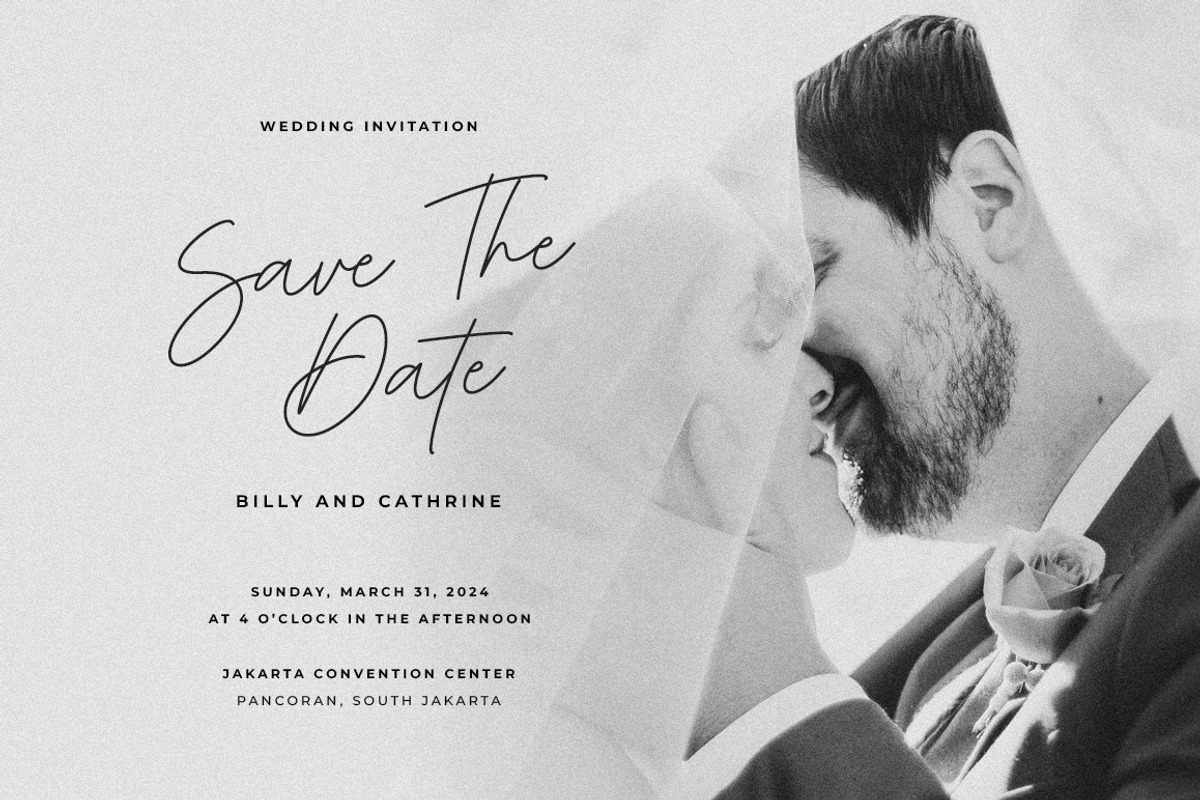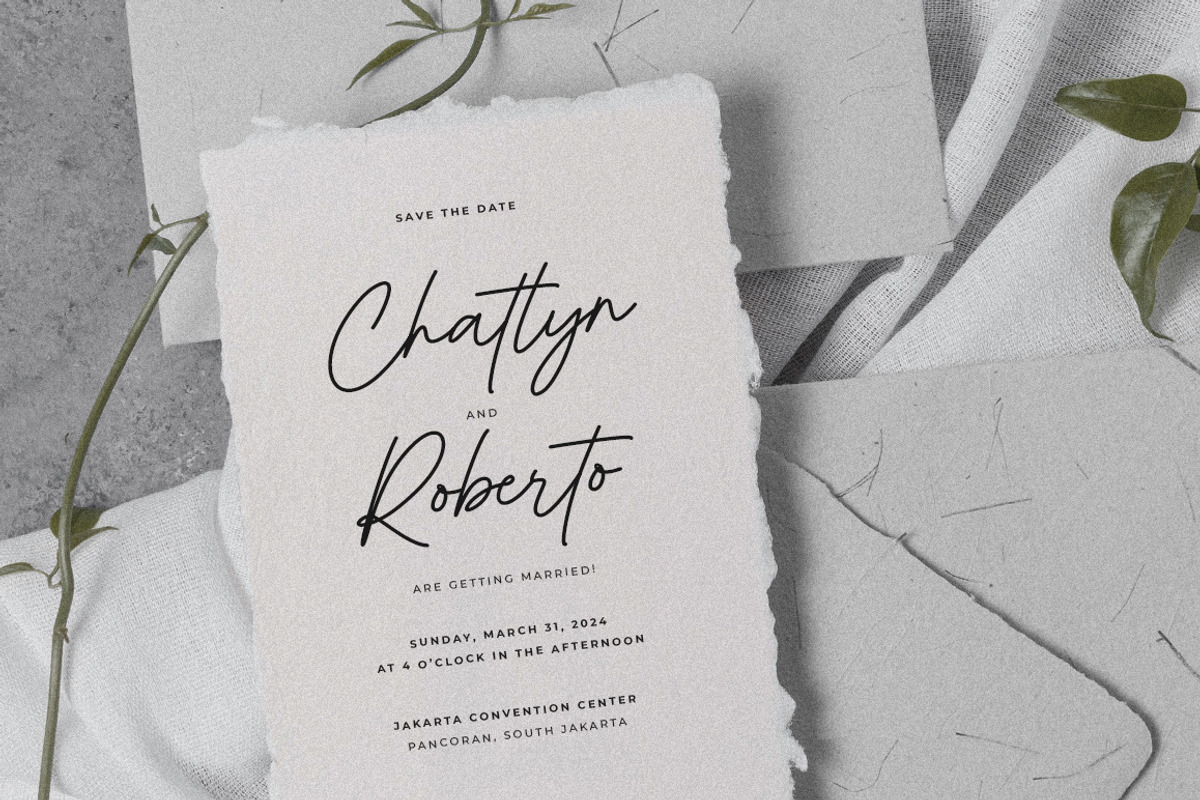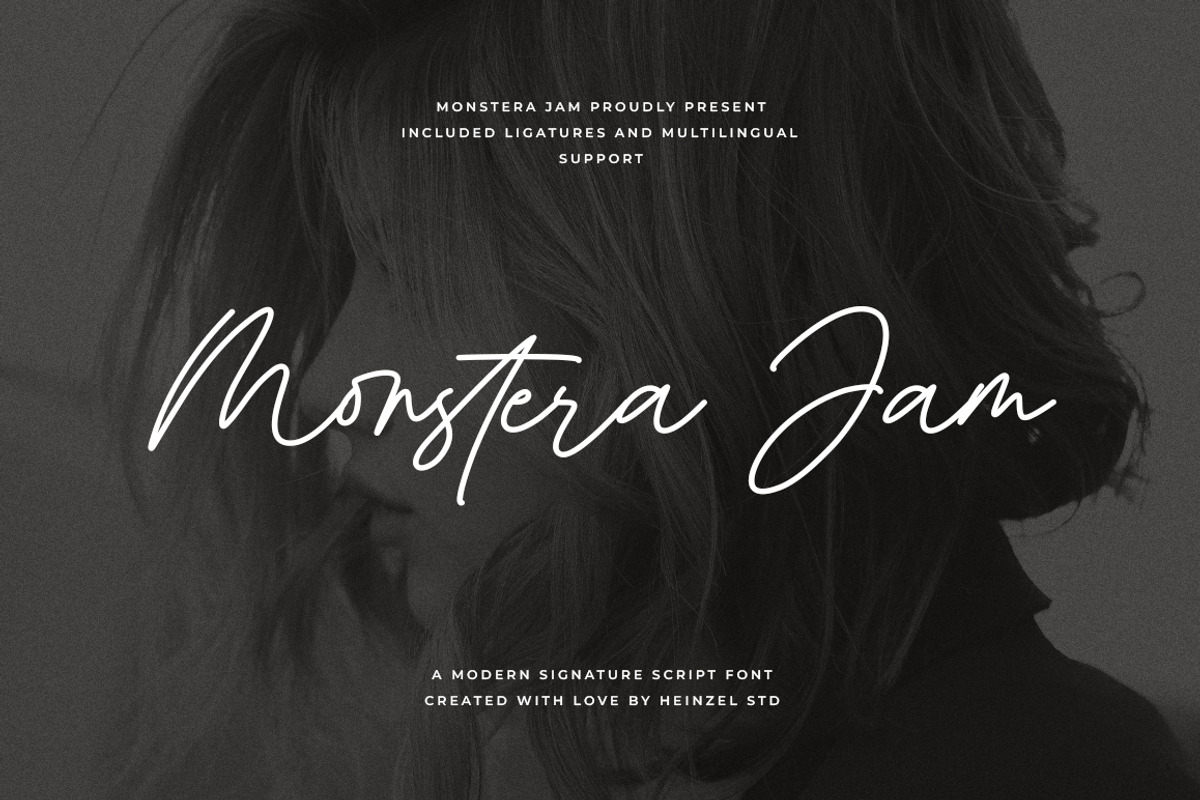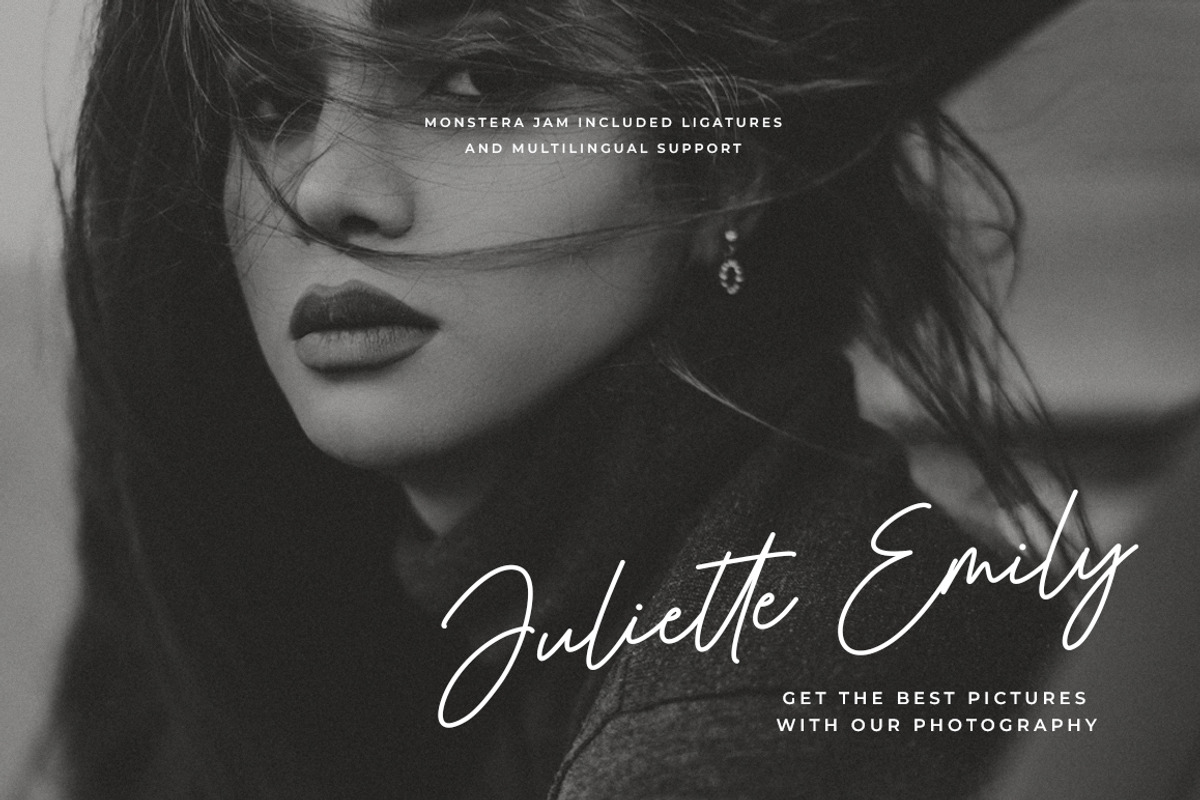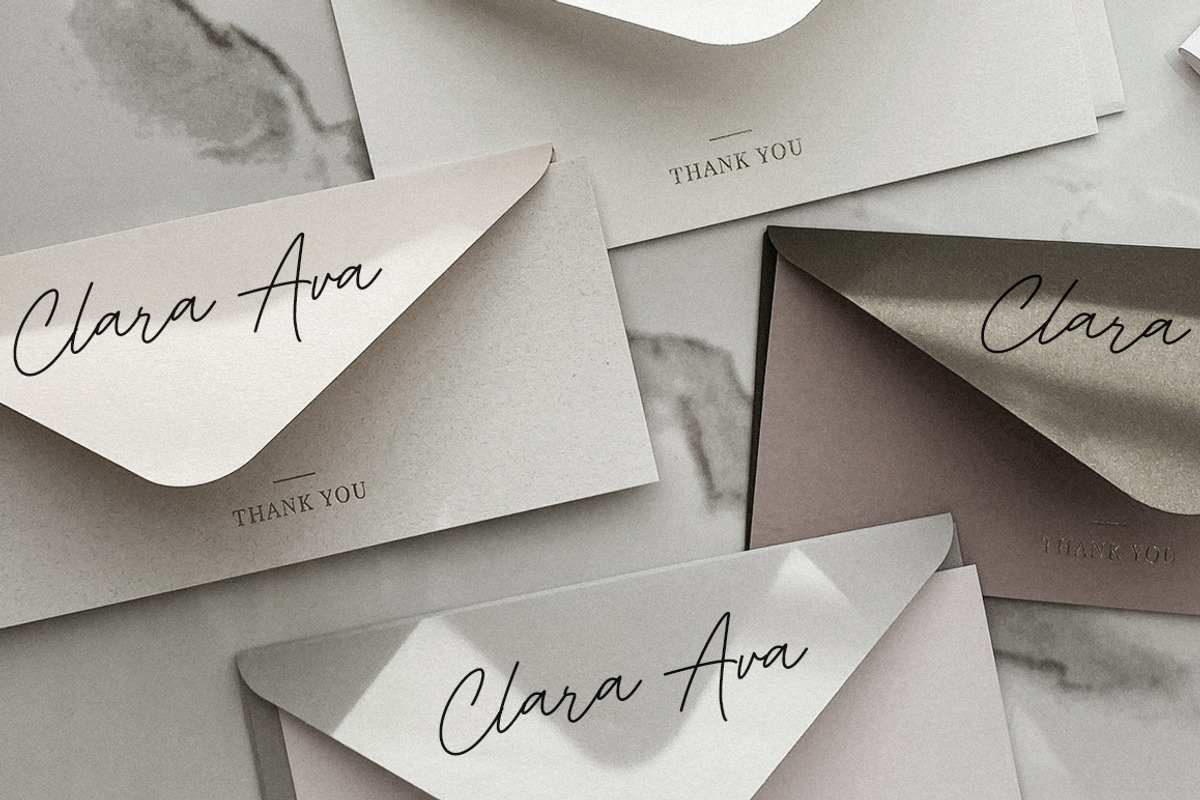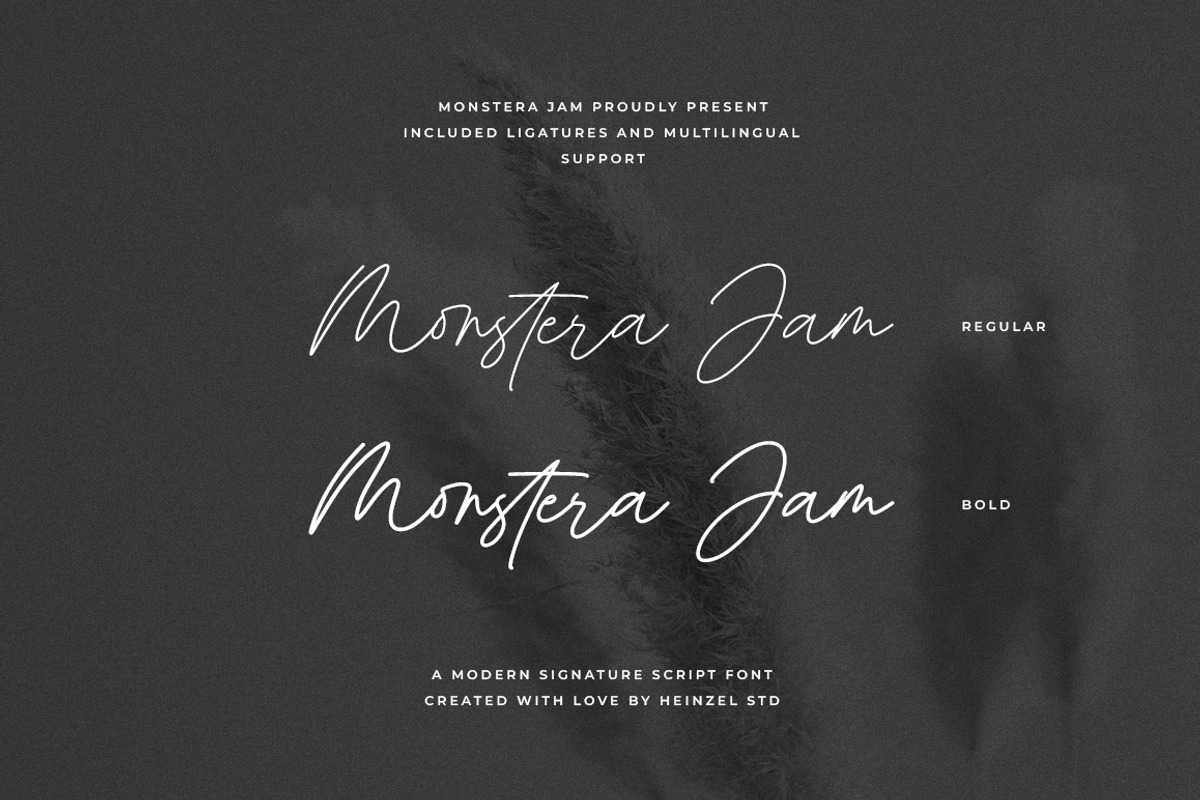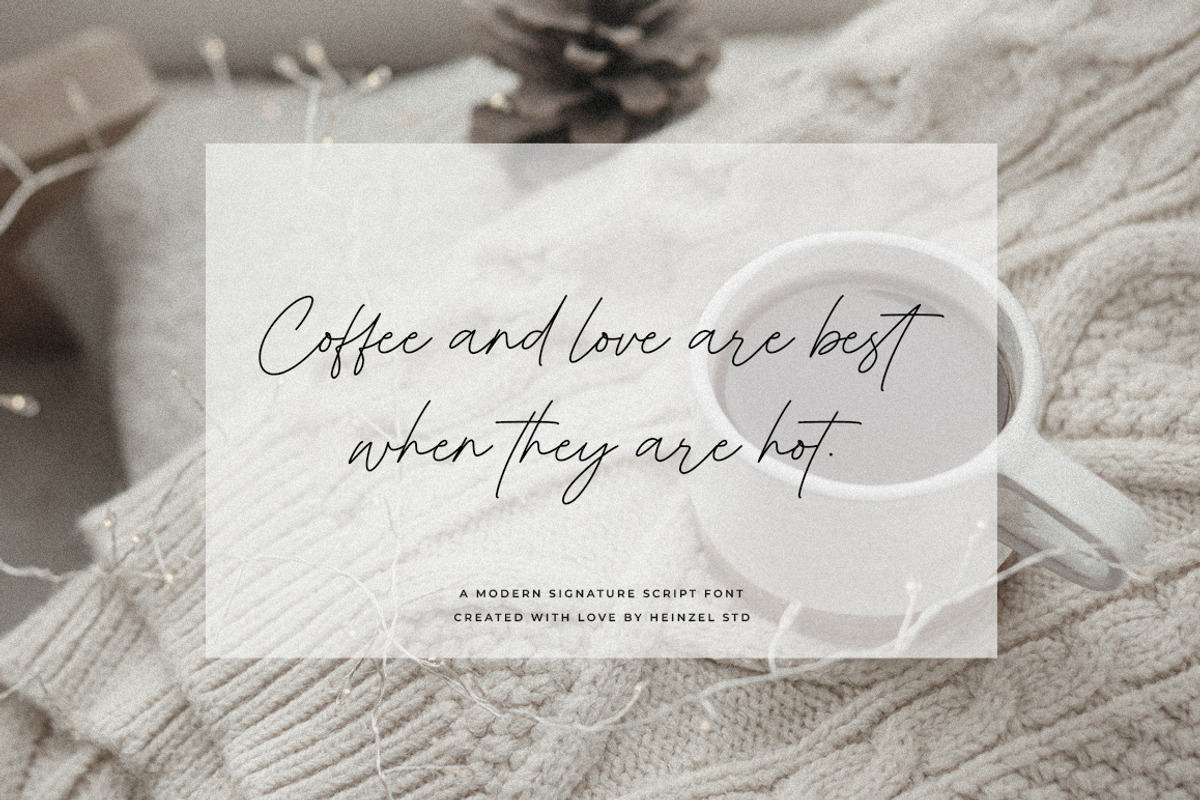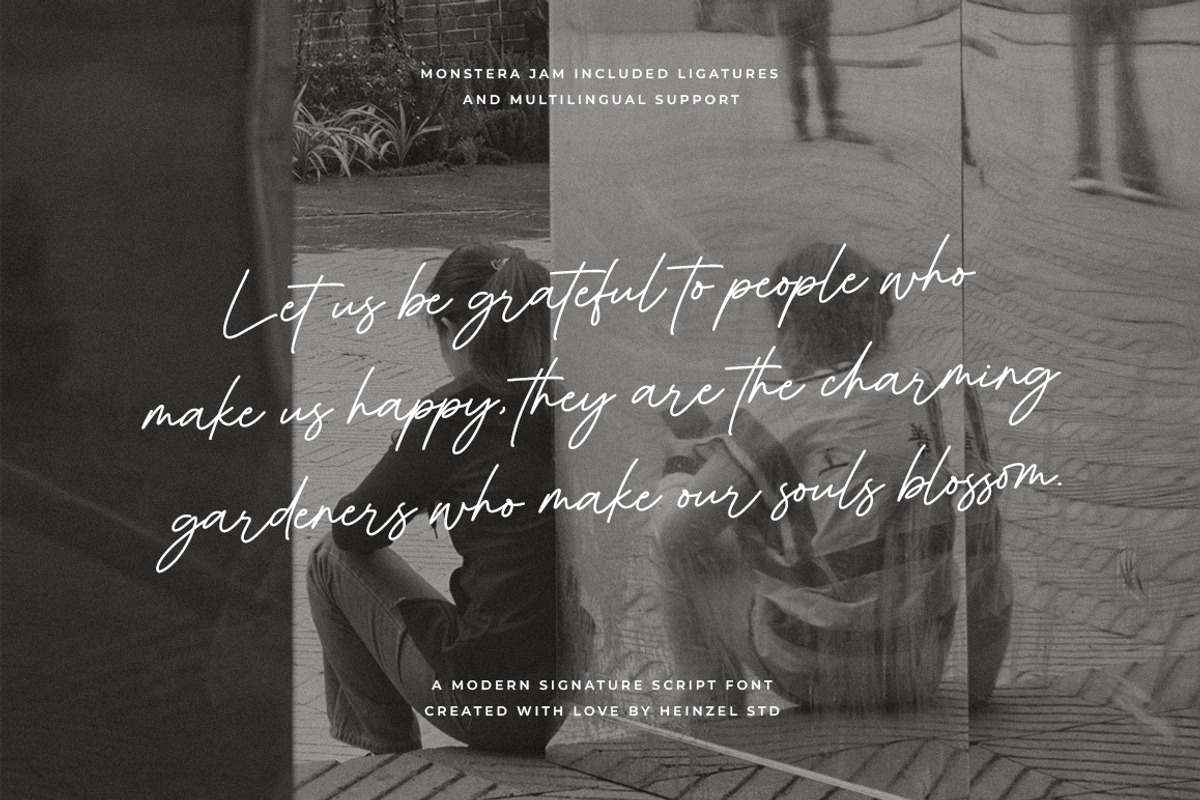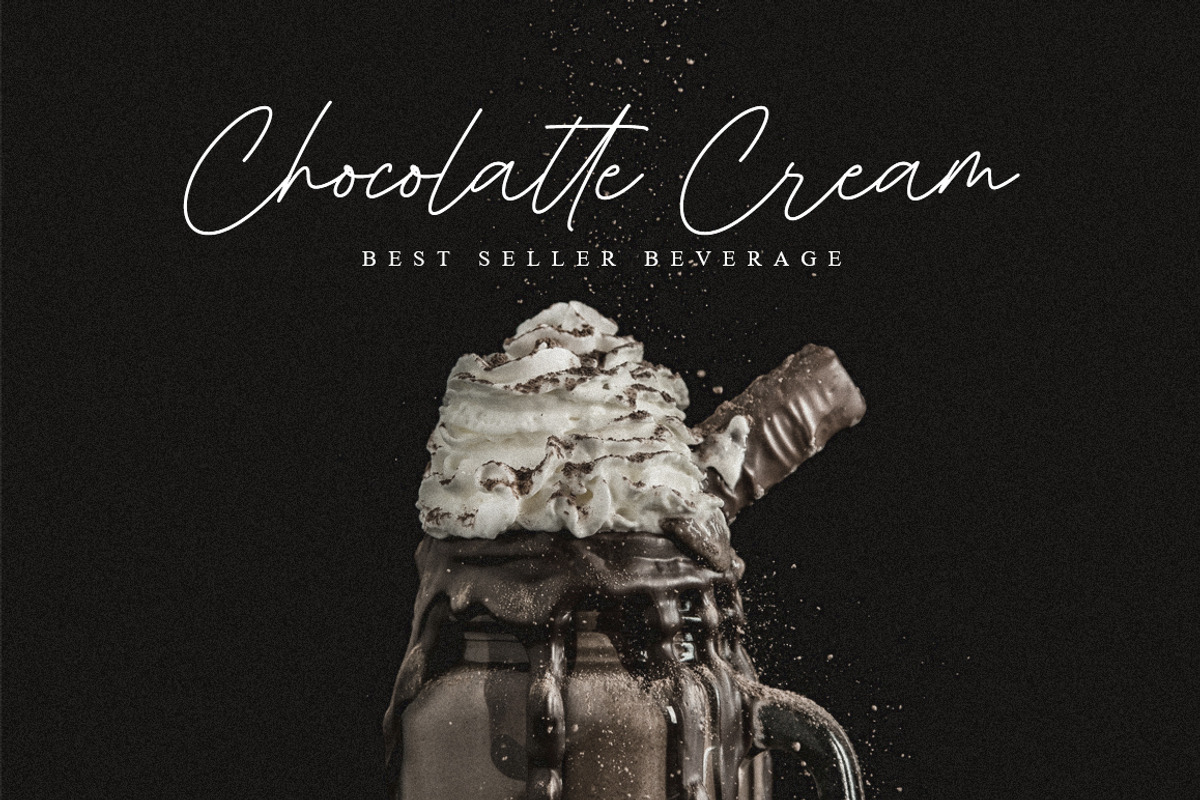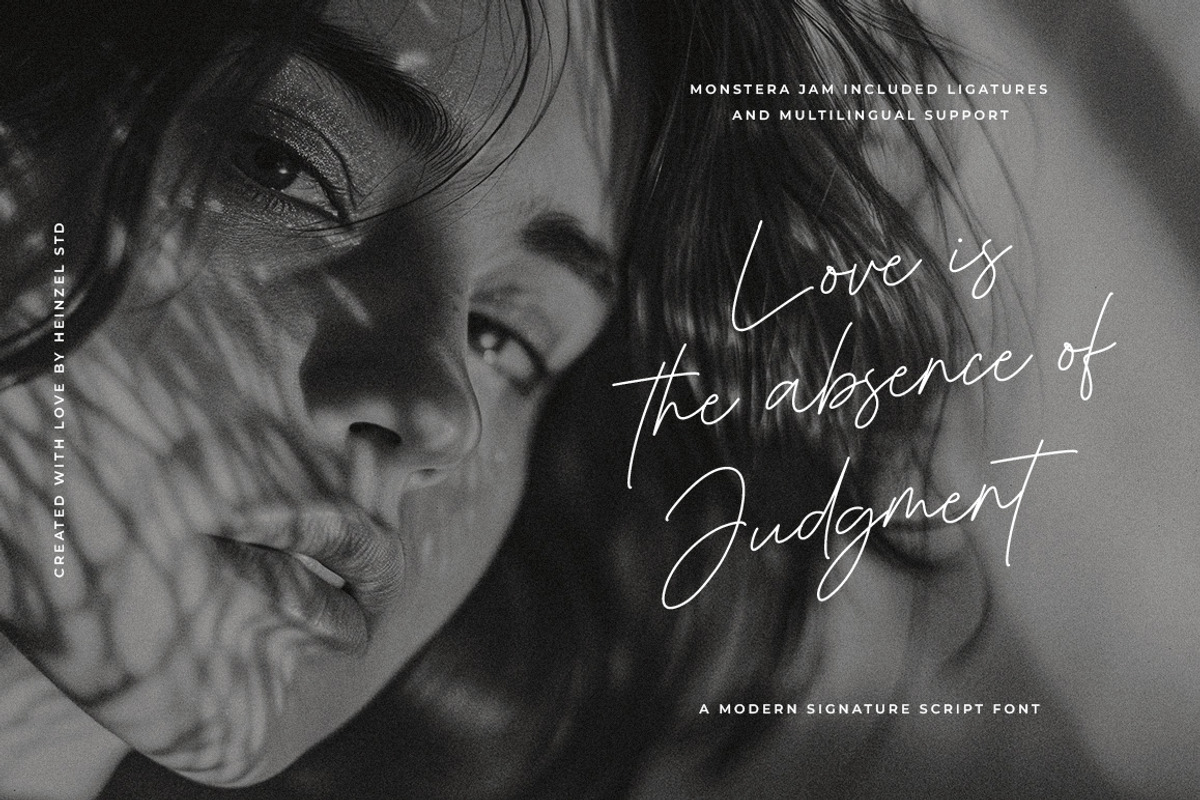
Monstera Jam Modern Signature Font
Monstera Jam - Modern Signature Font
Monstera Jam is a modern signature script font that combines elegance and natural flow in every stroke. Designed to look effortlessly handwritten, this font is perfect for branding projects, logos, wedding invitations, photography watermarks, and stylish social media posts. With smooth ligatures and multilingual support, Monstera Jam offers versatility for both personal and commercial design needs. Its graceful curves and fluid lines make your typography look luxurious, modern, and timeless—ideal for any creative project seeking a personal touch.
Bring your designs to life with Monstera Jam’s authentic handwritten charm.
Monstera Jam Features:
Regular and Bold Version
Numerical and Punctuation
Multilingual Language